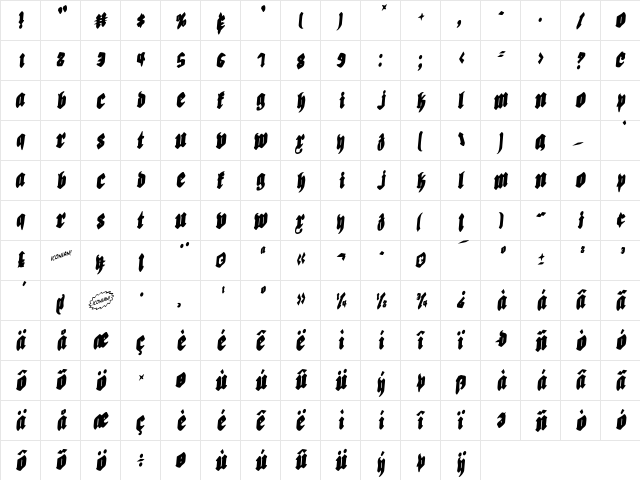
Bierg䲴en Rotalic Condensed
Design Context for Bierg䲴en Rotalic Typeface
Bierg䲴en Rotalic is a composed and adaptable typeface that performs quietly and consistently across a wide range of design contexts. The condensed width makes it efficient for tight spaces without sacrificing legibility.